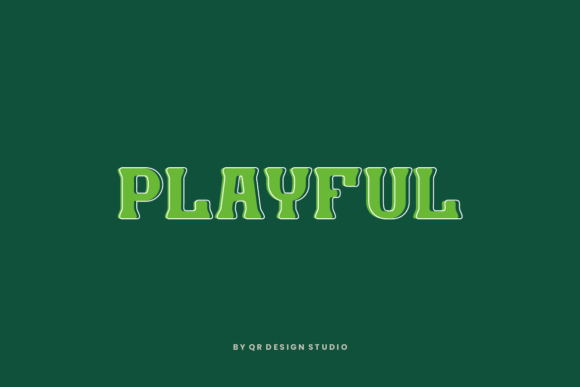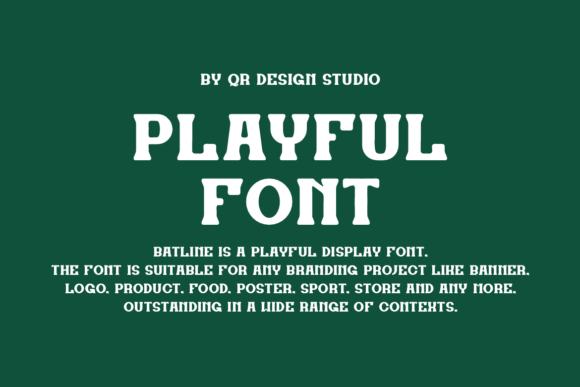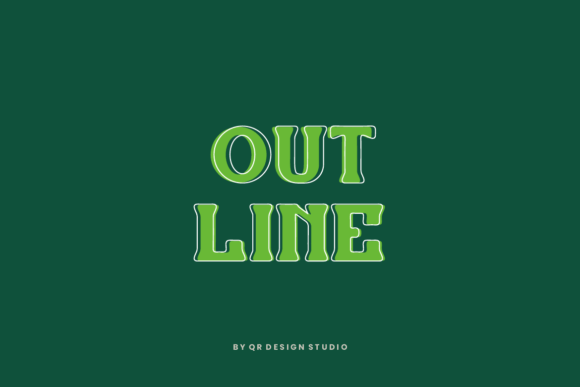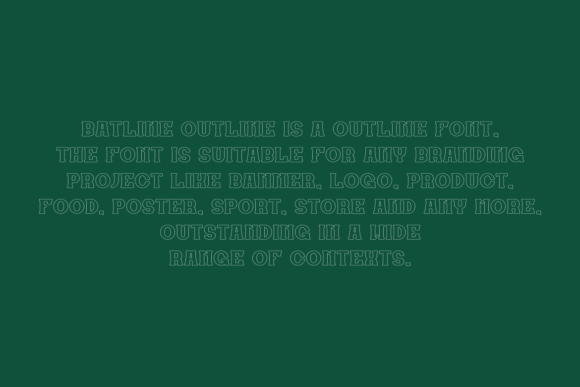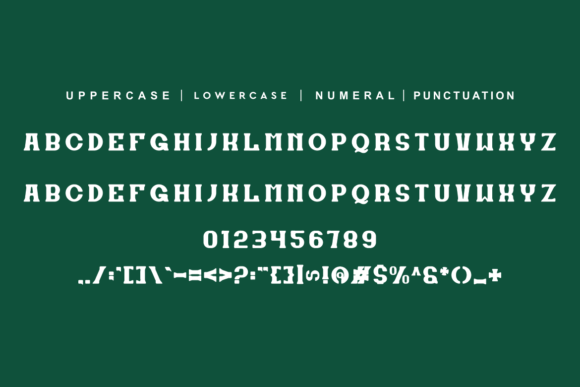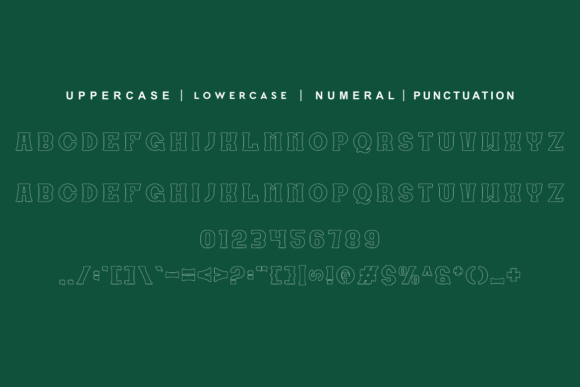
Batline Font: Elevate Your Designs with a Bold and Authentic Slab Serif
In the world of typography, a good font can make all the difference in the success of a design project. For designers and crafters looking to add a touch of boldness and authenticity to their creations, Batline Font is an excellent choice. This slab serif font is designed to make a statement, and its versatility makes it an incredible asset to any font library.
What is Batline Font?
Batline Font is a bold and authentic slab serif font that is perfect for a wide range of design applications. Its sturdy and dependable design makes it ideal for use in headlines, titles, and short paragraphs of text. The font’s bold and confident appearance is sure to grab attention and make your designs stand out.
Key Features of Batline Font
- Bold and Authentic Design: Batline Font features a bold and authentic slab serif design that is perfect for making a statement.
- Versatility: This font is versatile and can be used for a wide range of design applications, from print to digital.
- Elegant and Sophisticated: Despite its bold design, Batline Font has an elegant and sophisticated feel that makes it perfect for use in high-end designs.
- Easy to Read: The font’s clear and simple design makes it easy to read, even at small sizes.
Why Choose Batline Font?
There are many reasons why designers and crafters should choose Batline Font for their design projects. Here are a few:
- Adds a Touch of Boldness: Batline Font adds a touch of boldness and confidence to any design, making it perfect for headlines and titles.
- Perfect for a Wide Range of Design Applications: This font is perfect for use in a wide range of design applications, from print to digital.
- Elevates Your Designs: Batline Font has the potential to elevate any design, making it perfect for designers and crafters looking to take their designs to the next level.
How to Use Batline Font
Using Batline Font is easy. Here are a few tips:
- Use it as a Headline Font: Batline Font is perfect for use as a headline font, adding a touch of boldness and confidence to your designs.
- Pair it with Other Fonts: This font pairs well with other fonts, making it perfect for use in combination with other typefaces.
- Experiment with Different Sizes: Batline Font looks great at a variety of sizes, so don’t be afraid to experiment and find the perfect size for your design.
In conclusion, Batline Font is a bold and authentic slab serif font that is perfect for designers and crafters looking to add a touch of boldness and confidence to their designs. Its versatility, elegant design, and ease of use make it an incredible asset to any font library. Whether you’re working on a print or digital project, Batline Font is sure to elevate your designs and make them stand out.